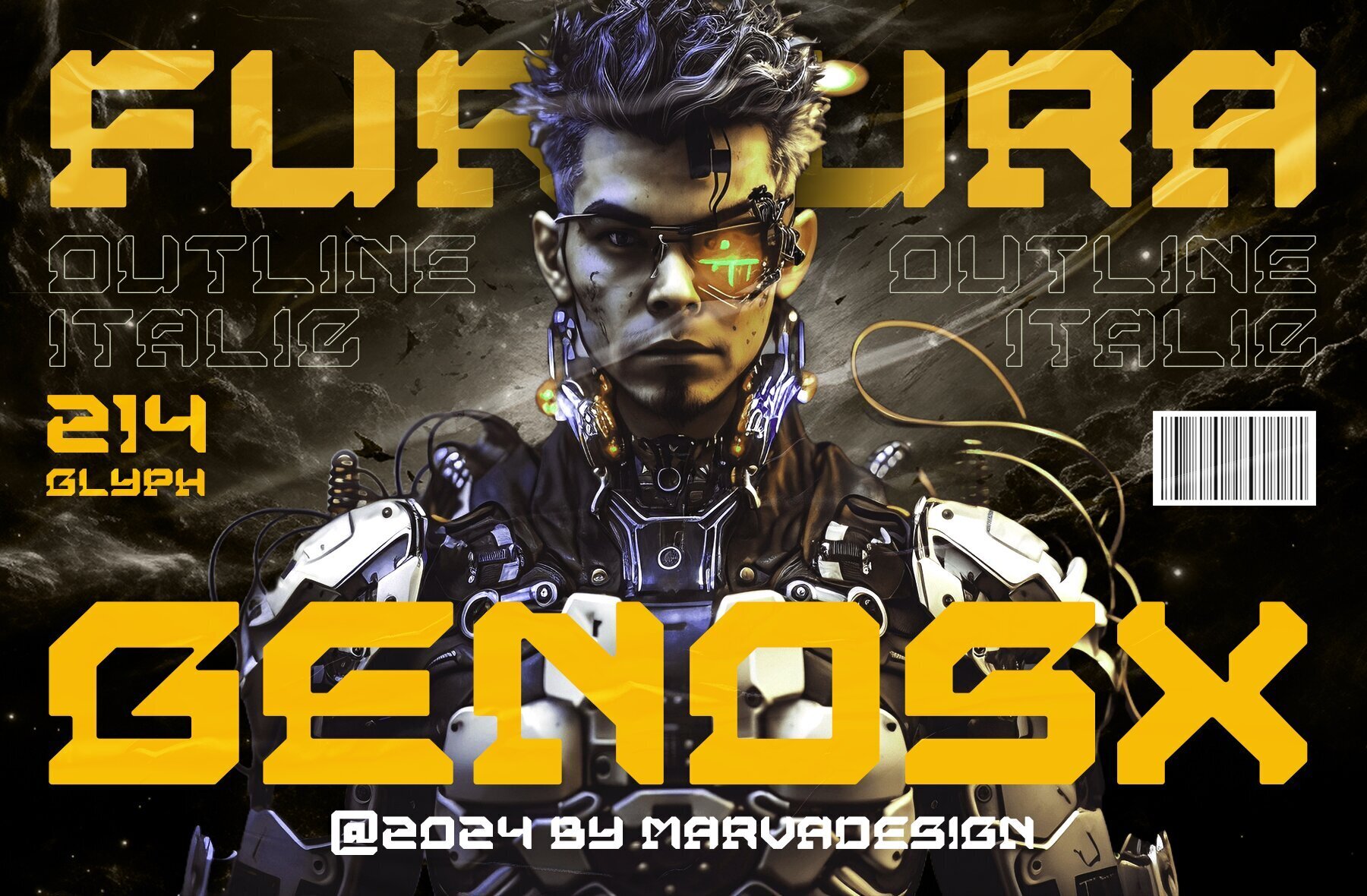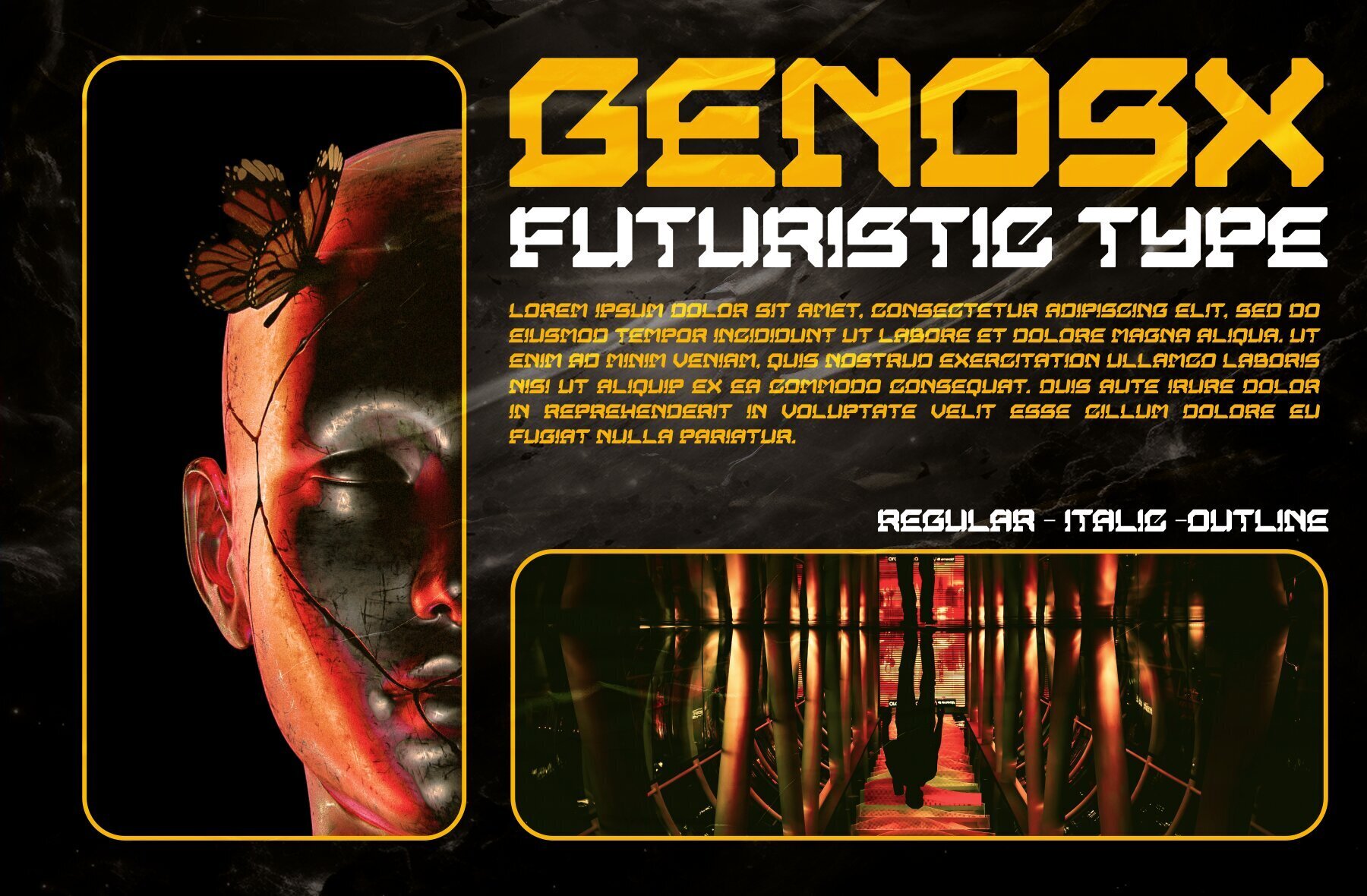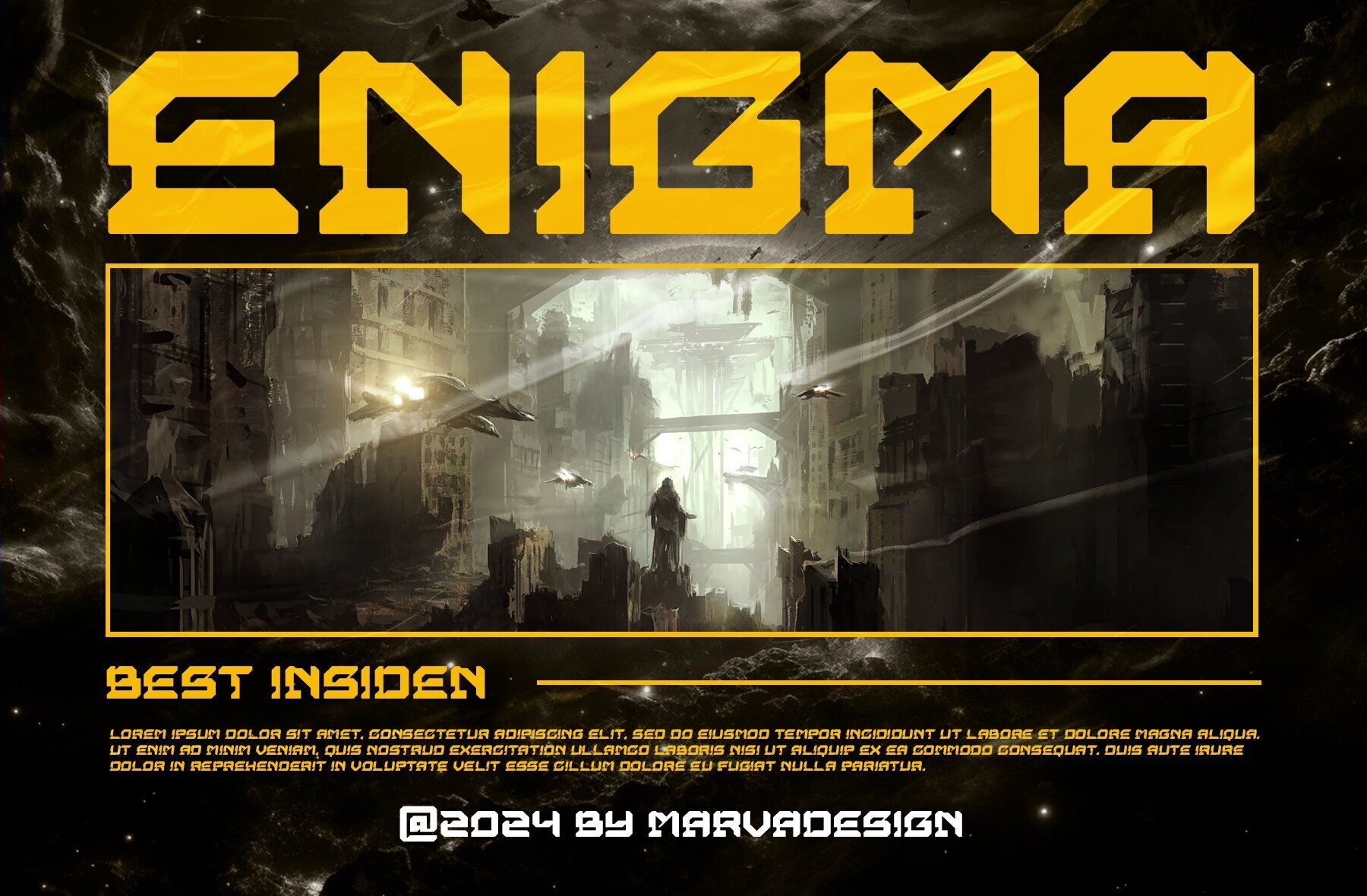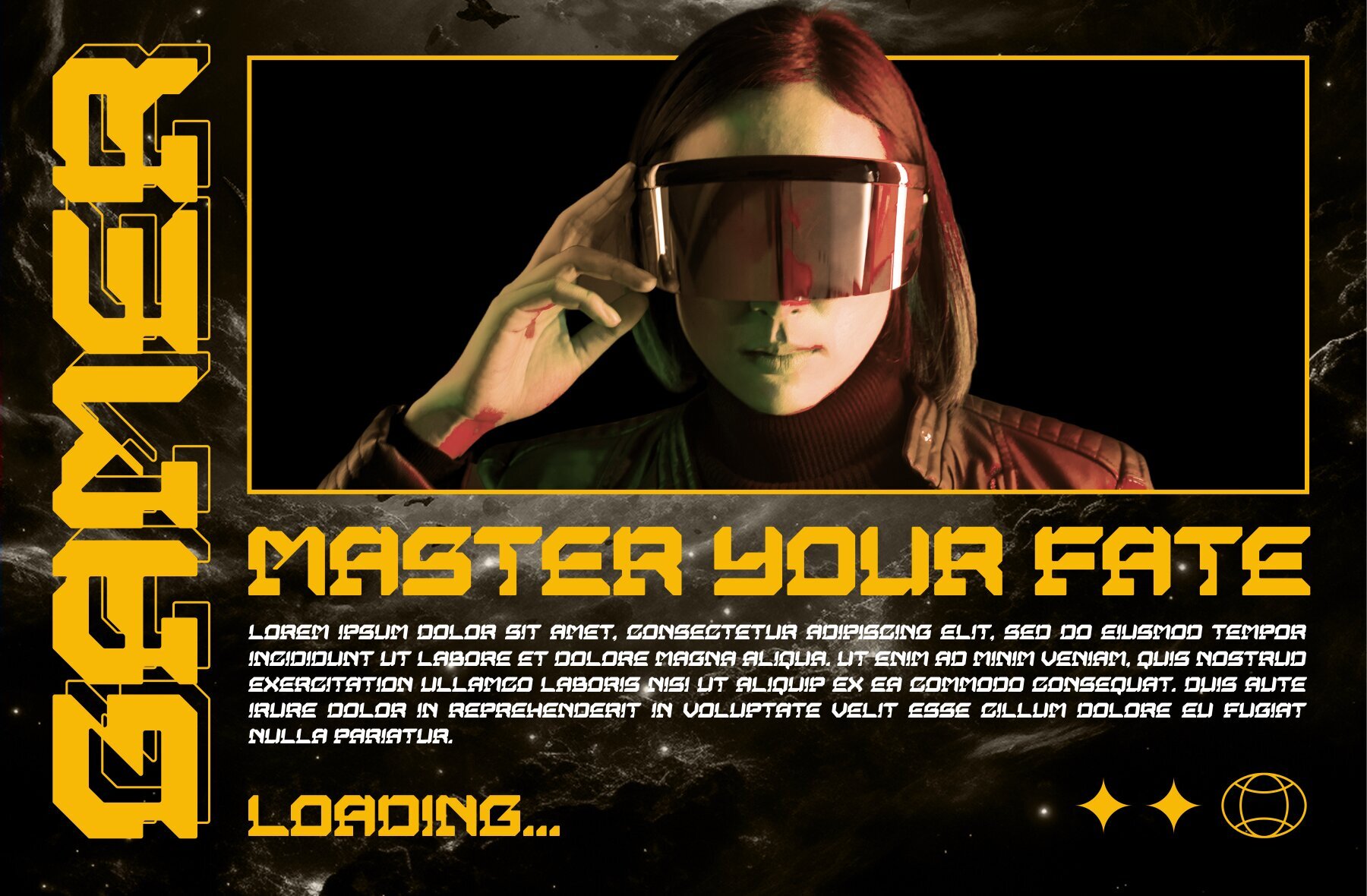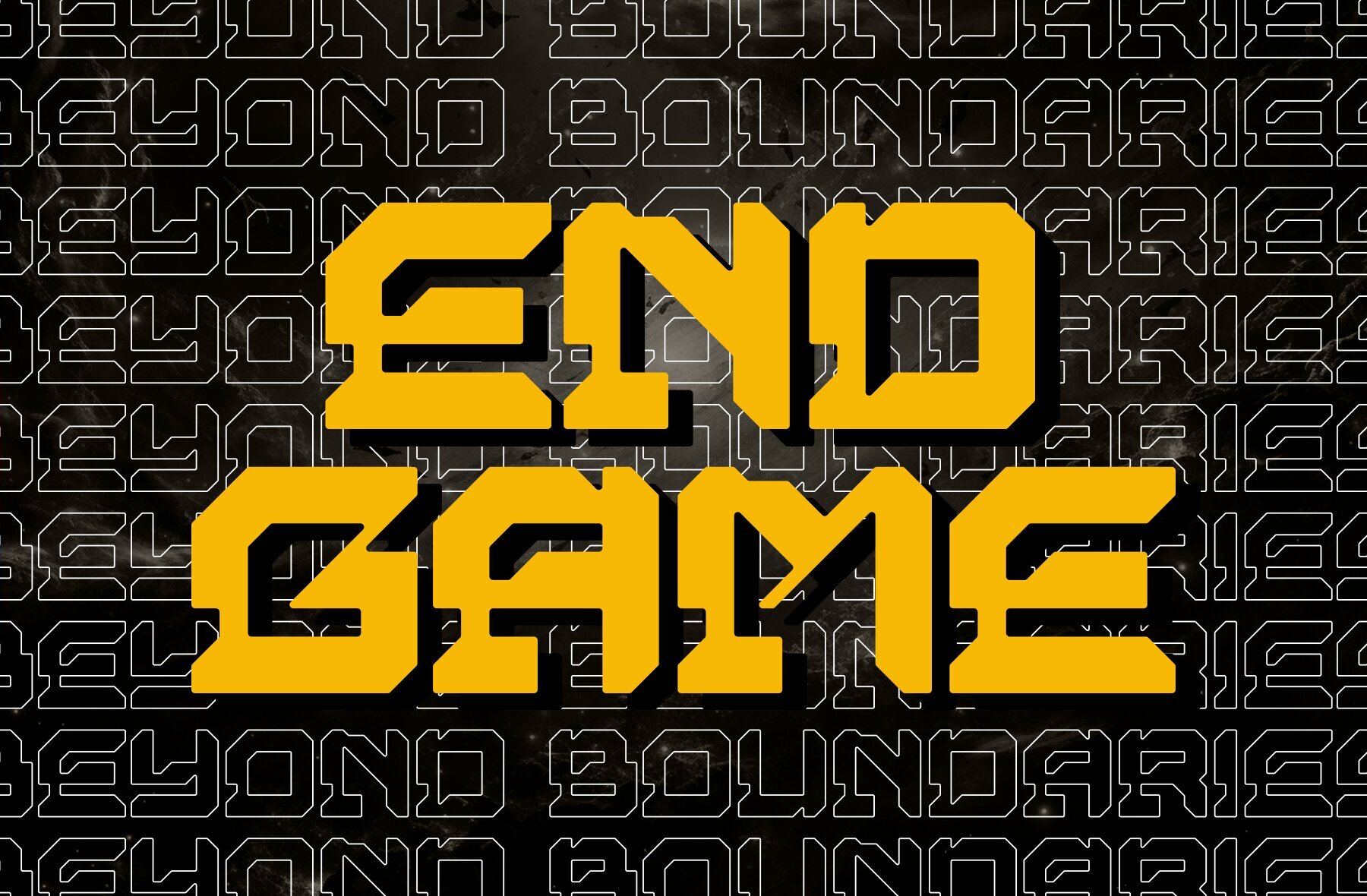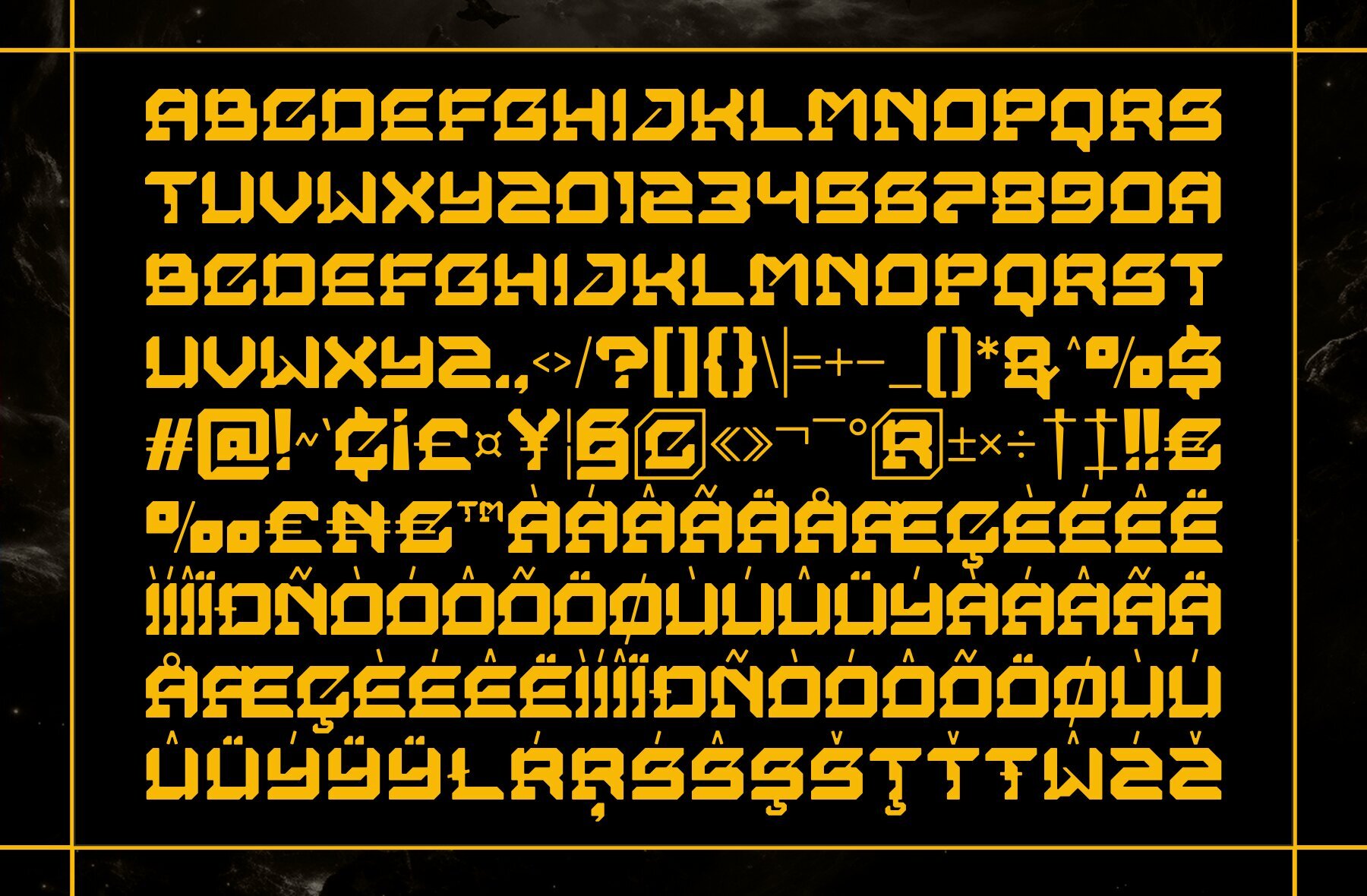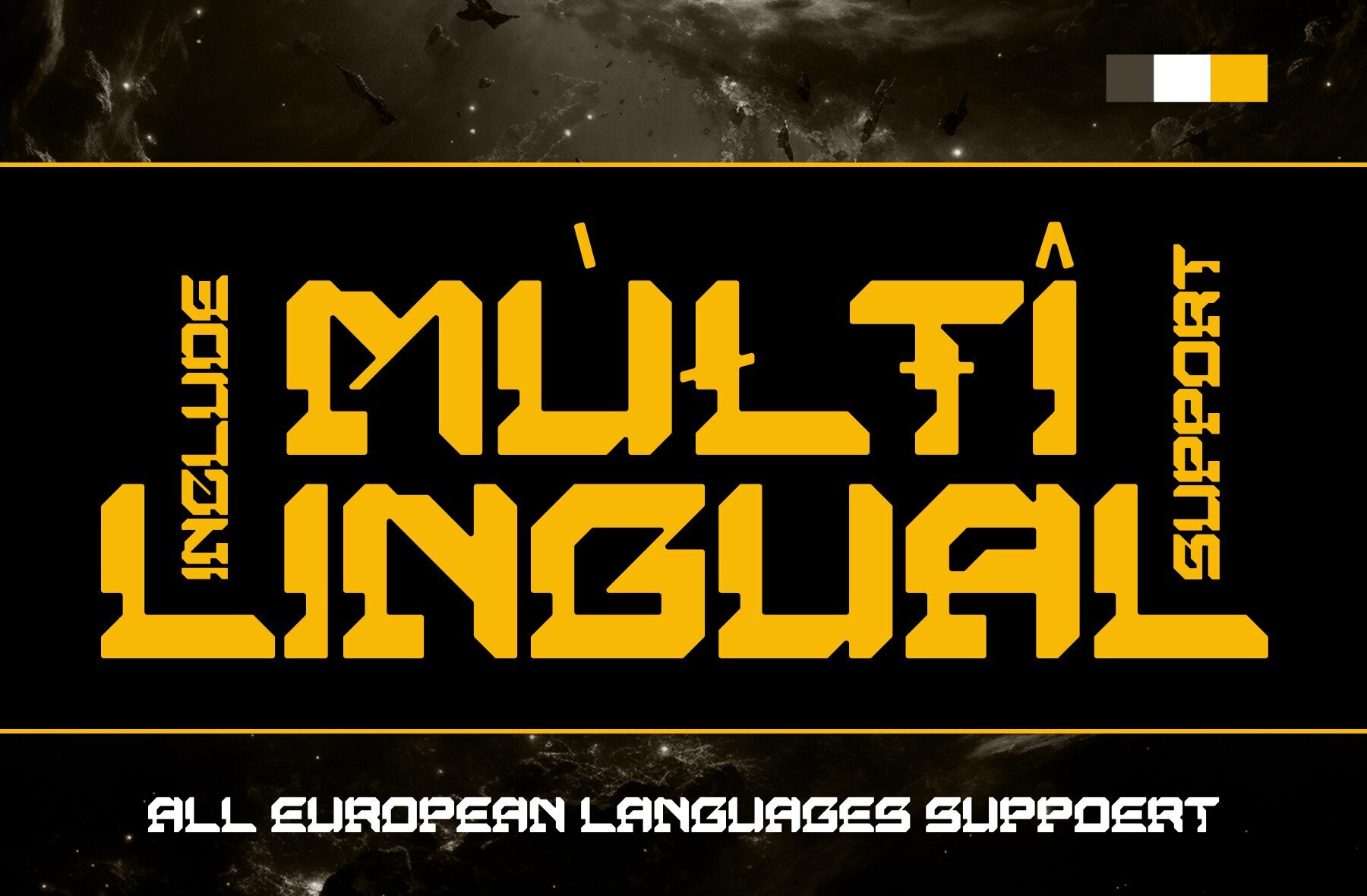
Genosx Font
Genosx is a decorative font that combines a touch of technology and futuristic style with a stunning decorative design. Each letter is designed with precision and clean lines that create a modern, sophisticated look. With bold geometric elements and a strong futuristic feel, it is suitable for design projects that require a high-tech aesthetic. This font has a unique character that reflects speed, innovation and sharpness. The overall design of this font gives a strong technological feel, while providing a unique artistic touch. Ideal for titles, graphics or other design elements that require high visual appeal and a modern feel.